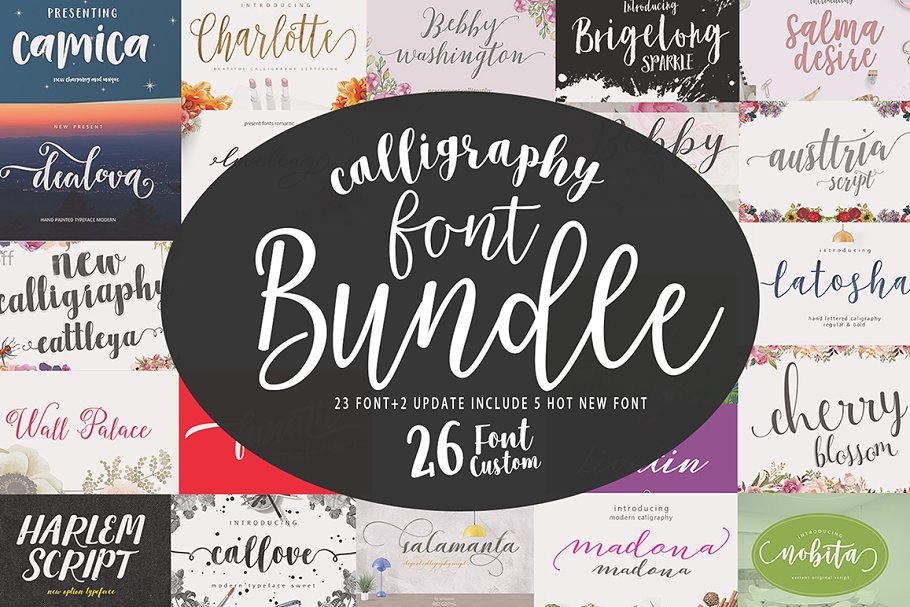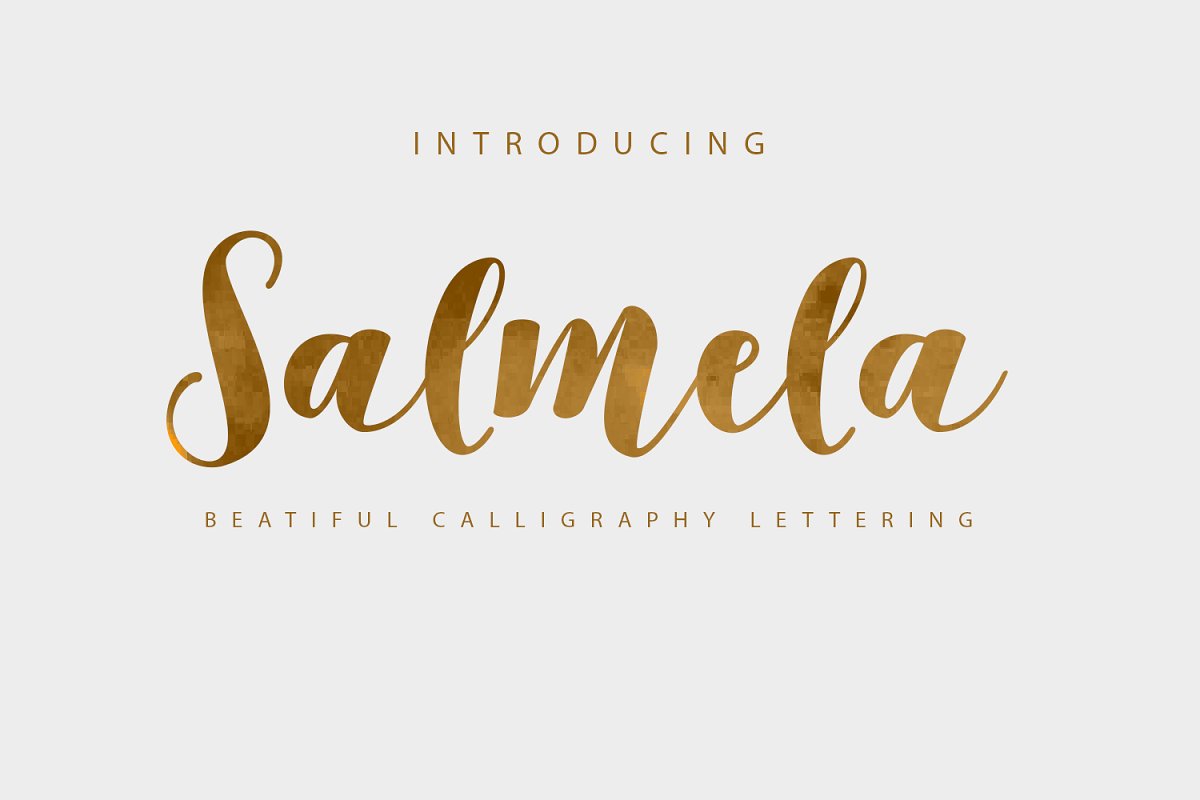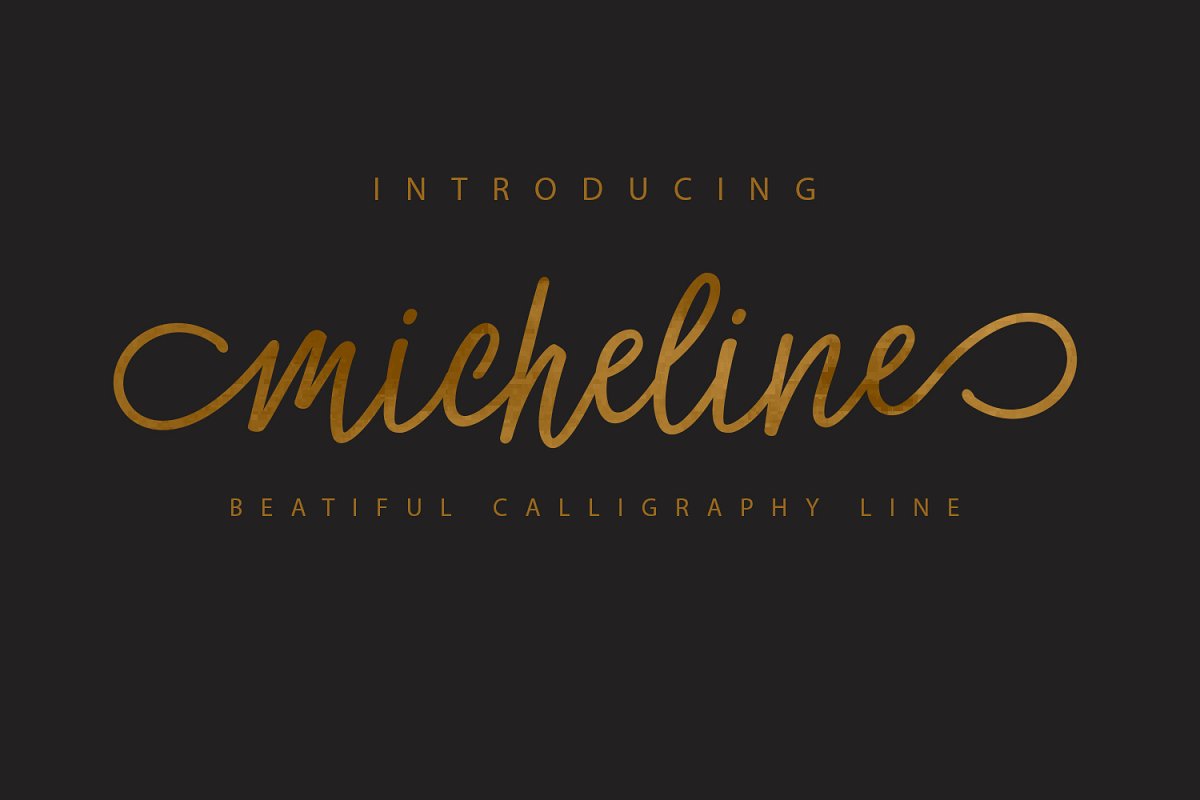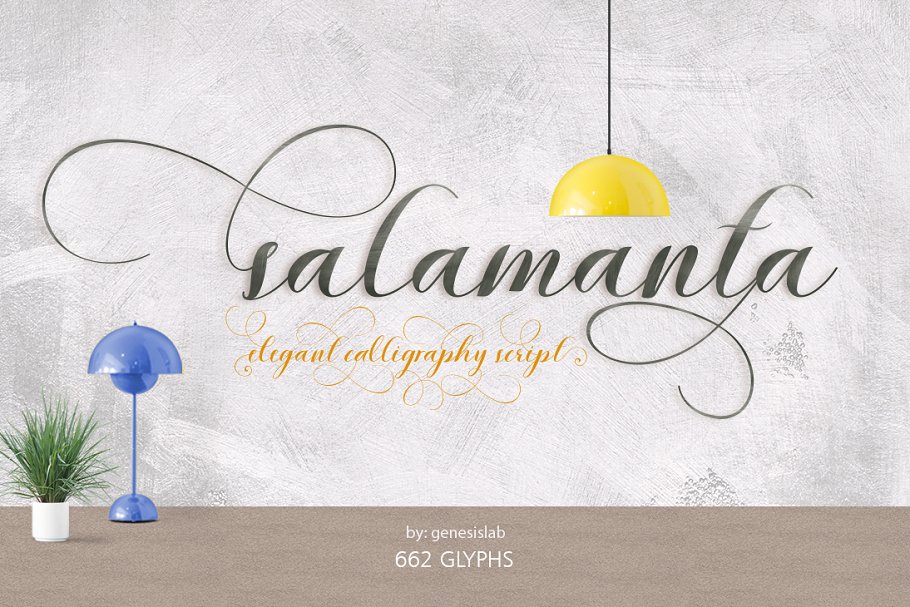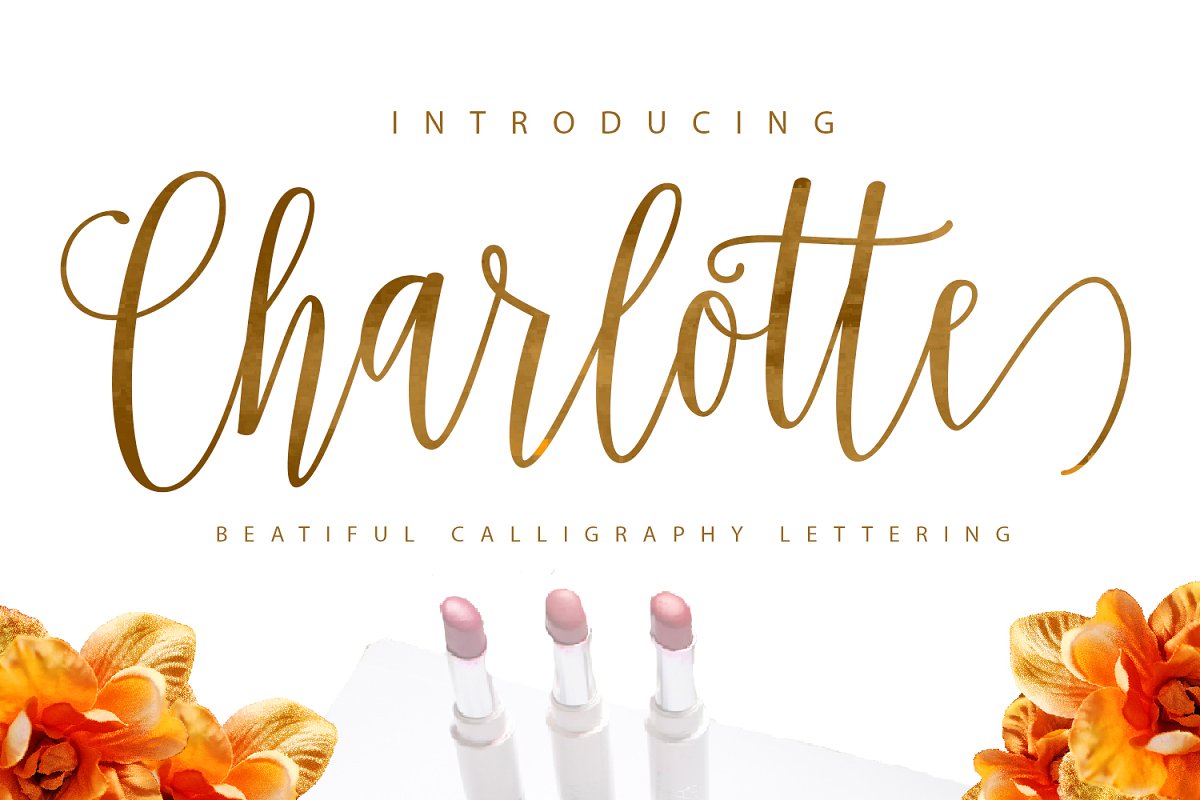
About the Bundle Caligraphy Font
(UPDATES NEW 3 NEW FONT TO BE 26 CHARACTERS FONT Swash & CONTEXTUAL ALTERNATIVE) Special price discounts only in this week !Just for you faster, to get a product Caligraphy Bundle wonderful in a very limited time, do not get left behind agreement will be more than enough for a design project in your future, You would be hard pressed to find a more beautiful collection of hand-made script font
This set has 26 modern calligraphy fonts are perfect for creating a wedding invitation, signatures, letterheads, logos, T-shirts, and everything in between, With many OpenType features available, you can mix and match styles to create the perfect work